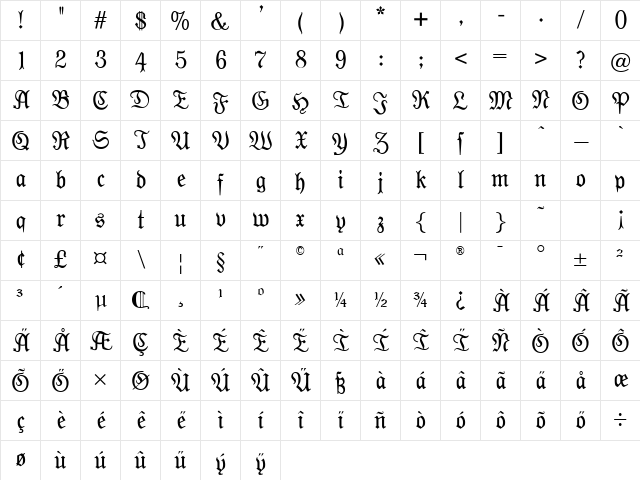
Complete Moderne Fraktur Regular glyph index. Displaying only characters natively supported by Moderne Fraktur Regular font.
Moderne Fraktur draws on the rich tradition of blackletter calligraphy, with dense, angular strokes that evoke medieval manuscripts and old-world craftsmanship.
Font Pairing: Pair with a clean neutral sans-serif for body copy to let Moderne Fraktur's character lead without overwhelming the composition.
Pro Tip: Reserve Moderne Fraktur for display and logo use - pair it with a clean sans-serif for body copy to prevent the composition from feeling oppressive.